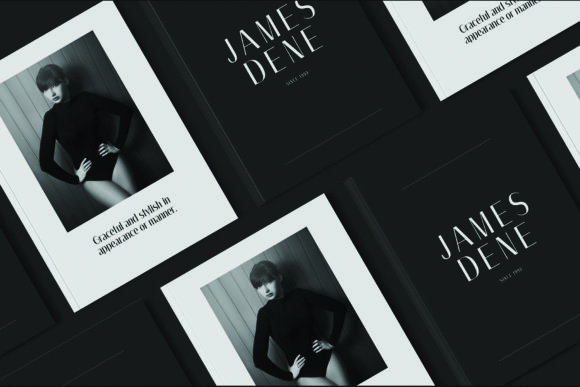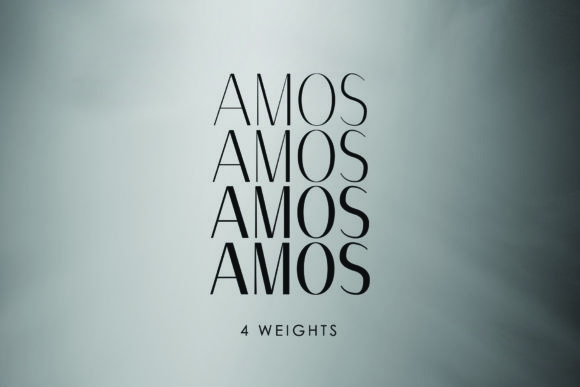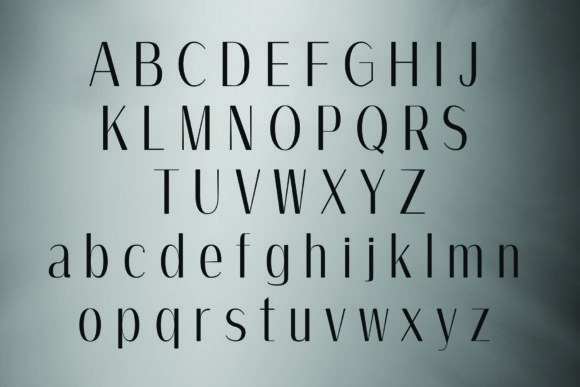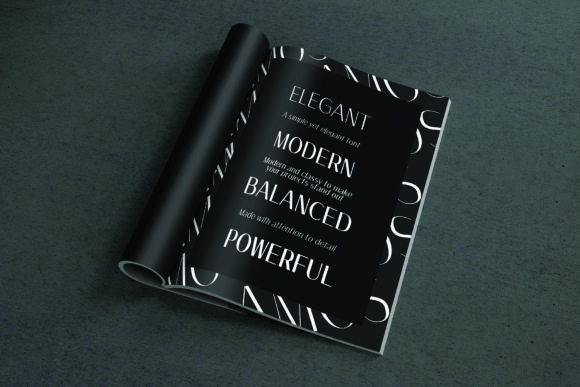
Introducing Amos Font: Elevate Your Design with a Chic and Modern Sans Serif
Are you a designer or crafter looking for a font that can add a touch of sophistication and elegance to your projects? Look no further than Amos Font. This stunning sans serif font is designed to bring a light and cool vibe to your designs, making it perfect for a wide range of applications. In this article, we’ll dive into the features and benefits of Amos Font, and explore how you can use it to take your designs to the next level.
What is Amos Font?
Amos Font is a beautifully crafted sans serif font that boasts a unique editorial twist. Its clean lines, subtle curves, and carefully considered letter spacing make it a joy to use in a variety of design projects. Whether you’re working on a branding campaign, a website, or a print project, Amos Font is sure to make a lasting impression.
Key Features of Amos Font
- Light and Cool Aesthetic: Amos Font features a light and airy feel that’s perfect for designs that require a sense of sophistication and elegance.
- Sans Serif Design: The font’s sans serif design makes it highly versatile and suitable for use in a wide range of applications, from digital media to print materials.
- Editorial Twist: Amos Font’s editorial twist sets it apart from other sans serif fonts, giving it a unique and distinctive feel that’s perfect for designs that require a touch of personality.
- Highly Legible: The font’s carefully considered letter spacing and clean lines make it highly legible, even at small sizes.
Benefits of Using Amos Font
So why choose Amos Font for your design projects? Here are just a few benefits of using this stunning font:
- Adds a Touch of Sophistication: Amos Font’s light and cool aesthetic makes it perfect for designs that require a sense of sophistication and elegance.
- Versatile: The font’s sans serif design and editorial twist make it highly versatile and suitable for use in a wide range of applications.
- Easy to Read: Amos Font’s highly legible design makes it perfect for use in body text, headlines, and other applications where readability is key.
- Unique and Distinctive: The font’s editorial twist sets it apart from other sans serif fonts, giving your designs a unique and distinctive feel.
How to Use Amos Font in Your Design Projects
Amos Font is a highly versatile font that can be used in a wide range of design projects. Here are a few ideas to get you started:
- Branding Campaigns: Use Amos Font to create stunning branding campaigns that showcase your brand’s personality and style.
- Websites: Add a touch of sophistication to your website with Amos Font, perfect for use in headlines, body text, and other design elements.
- Print Materials: Use Amos Font to create stunning print materials, such as brochures, flyers, and business cards.
- Social Media Graphics: Add a touch of elegance to your social media graphics with Amos Font, perfect for use in Facebook posts, Instagram stories, and other social media applications.
In conclusion, Amos Font is a stunning sans serif font that’s perfect for designers and crafters looking to add a touch of sophistication and elegance to their projects. With its light and cool aesthetic, editorial twist, and highly legible design, Amos Font is sure to become a go-to font in your design arsenal. So why wait? Download Amos Font today and start elevating your designs to the next level.